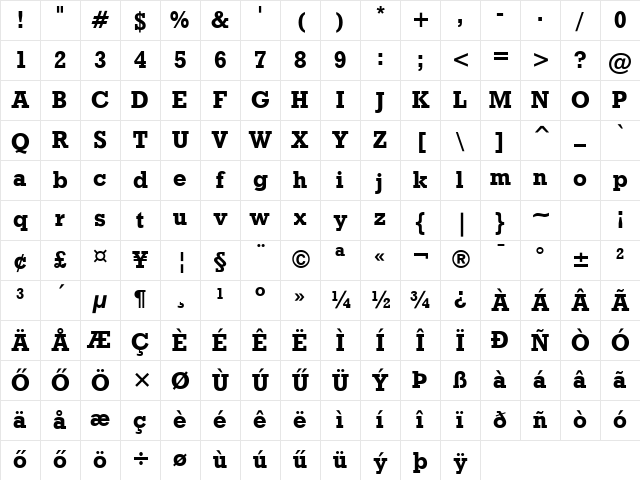
Complete Geometric-Slabserif712 HU Bold glyph index. Displaying only characters natively supported by Geometric-Slabserif712 HU Bold font.
Geometric-Slabserif712 HU features prominent, blocky serifs that give it a confident, grounded presence - equally at home in editorial settings and bold branding work. Its bold stroke weight gives it real presence on the page.
Pro Tip: Use Geometric-Slabserif712 HU for headlines and subheadings where its slab serifs can make an impression. It also holds up well in mid-size body copy thanks to its sturdy construction.